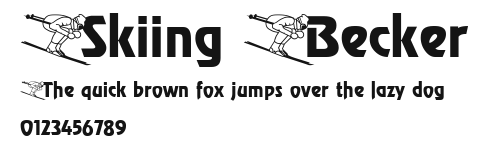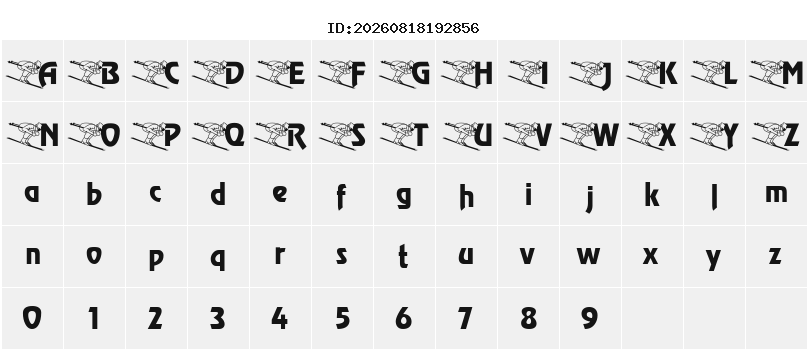
Skiing Becker Preview
• Font Name: Skiing Becker
• Full Font Name: Skiing Becker
About Skiing Becker.ttf
Skiing Becker.ttf is a modern, elegant sans-serif font designed for ultimate readability and visual harmony. Perfect for branding, headlines, web design, and print materials.